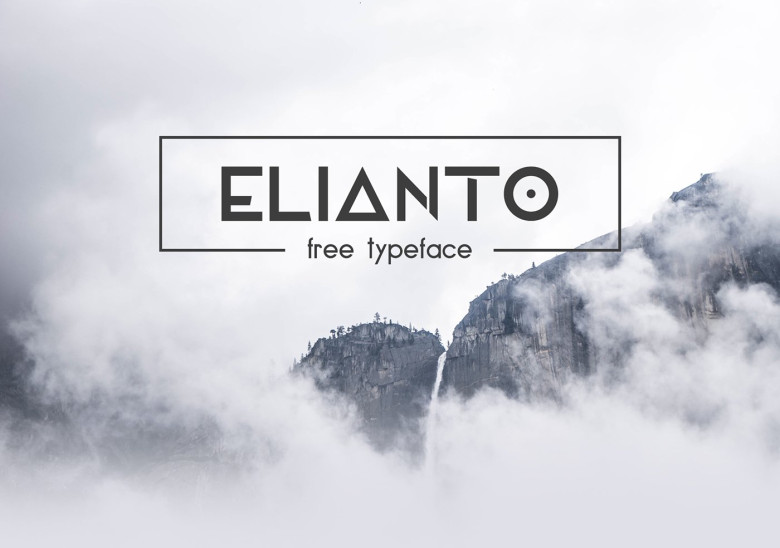
Elianto Font
Elianto is a sans-serif font, shared by Emanuele Papale, and it is free
Elianto font designed in contemporary style, with geometric lines, and very creative. You will be pleased to use in your work Elianto